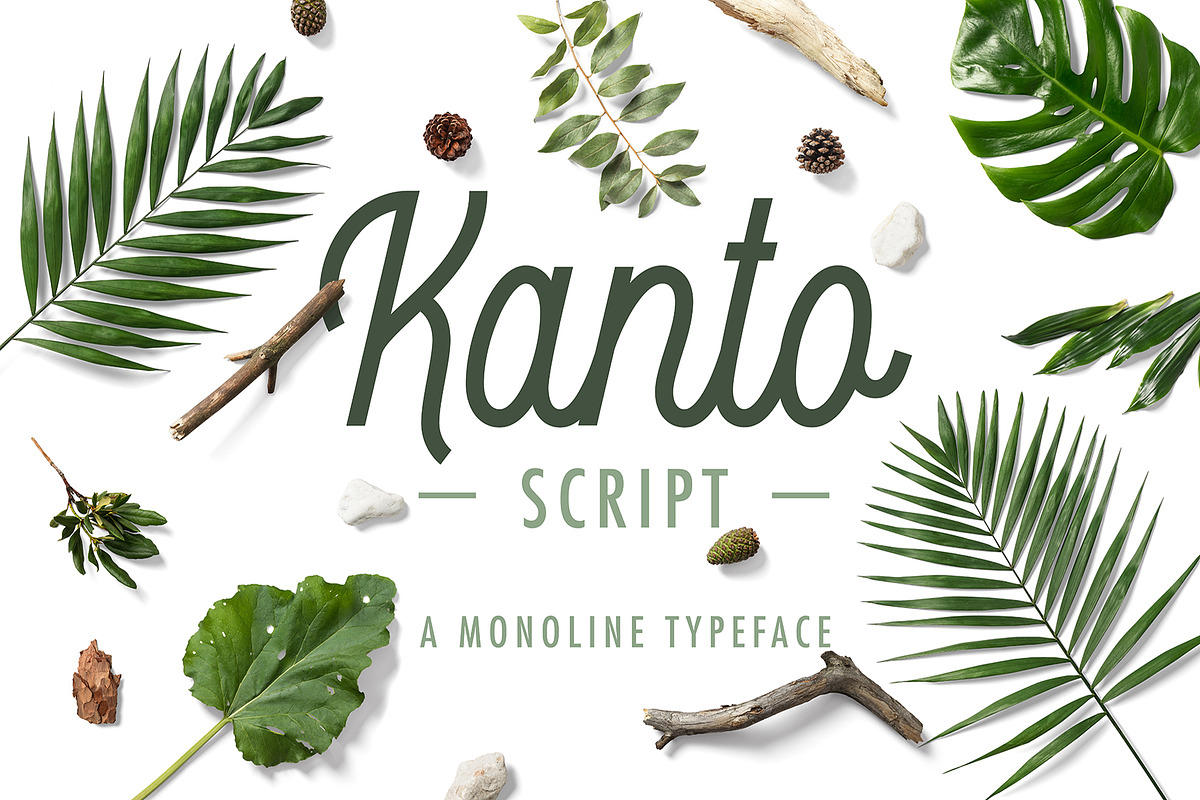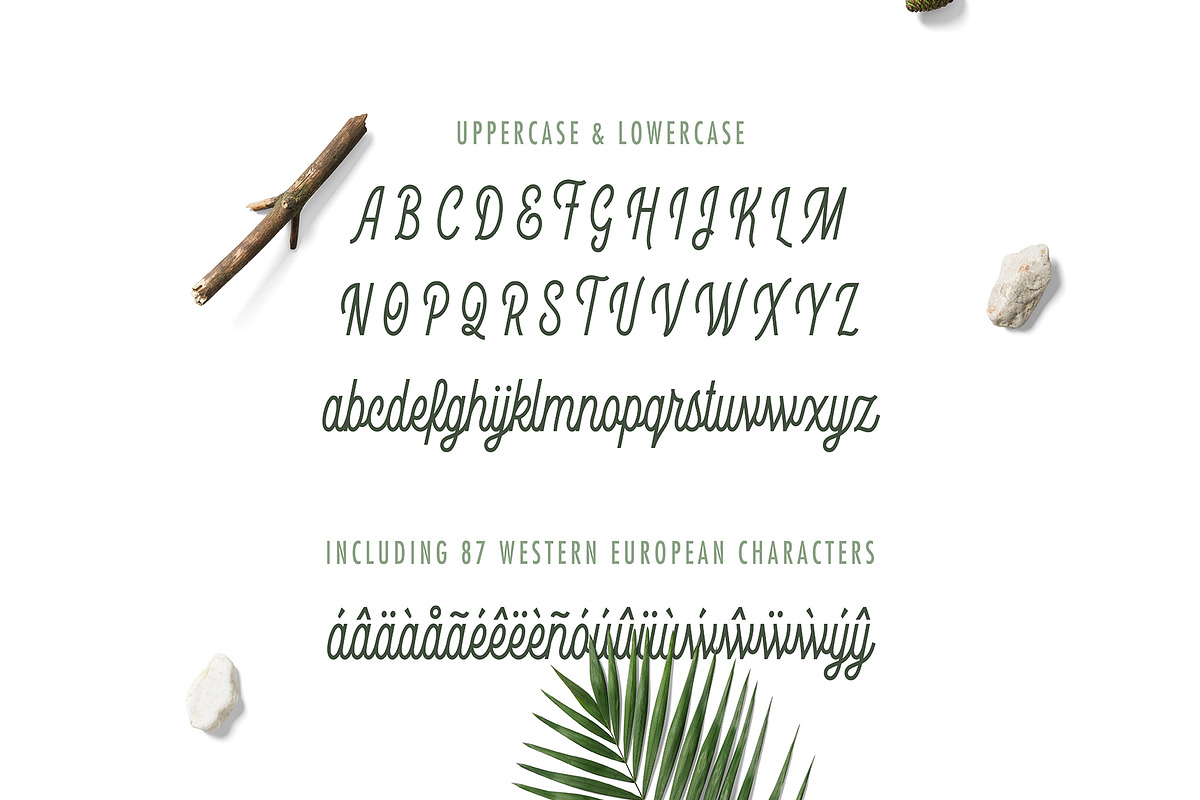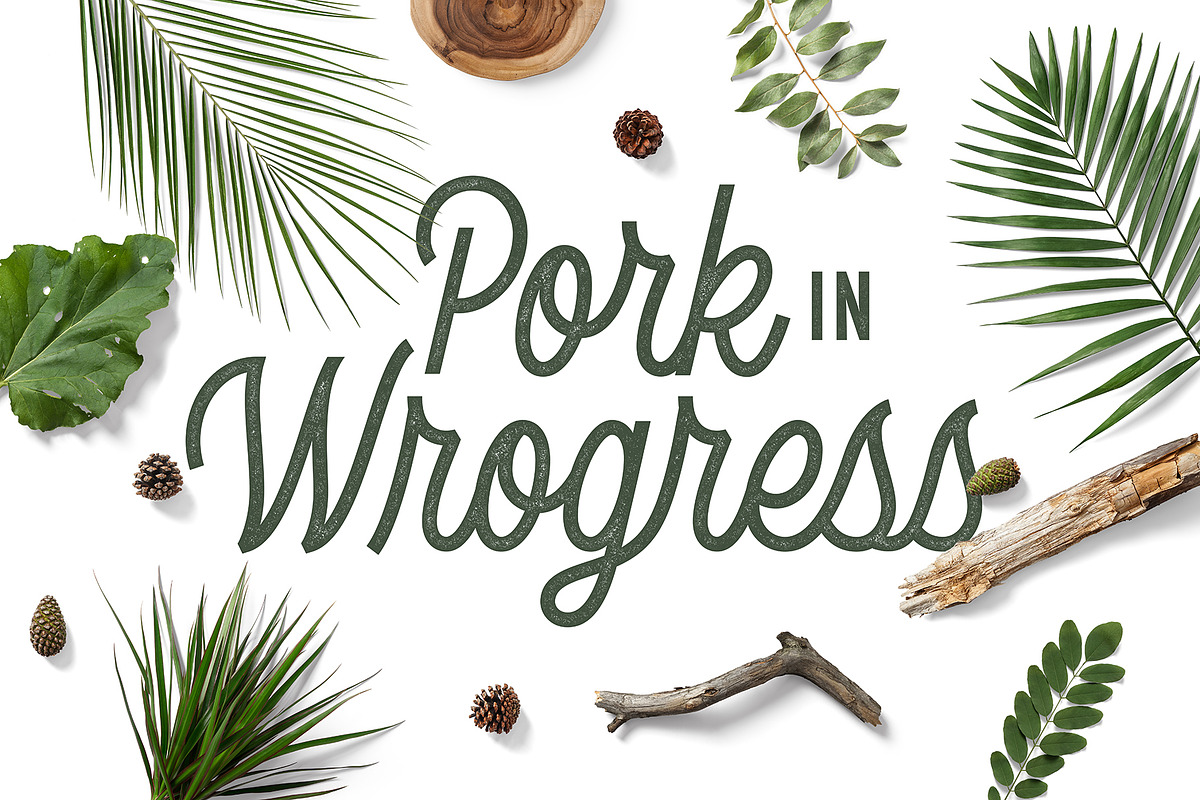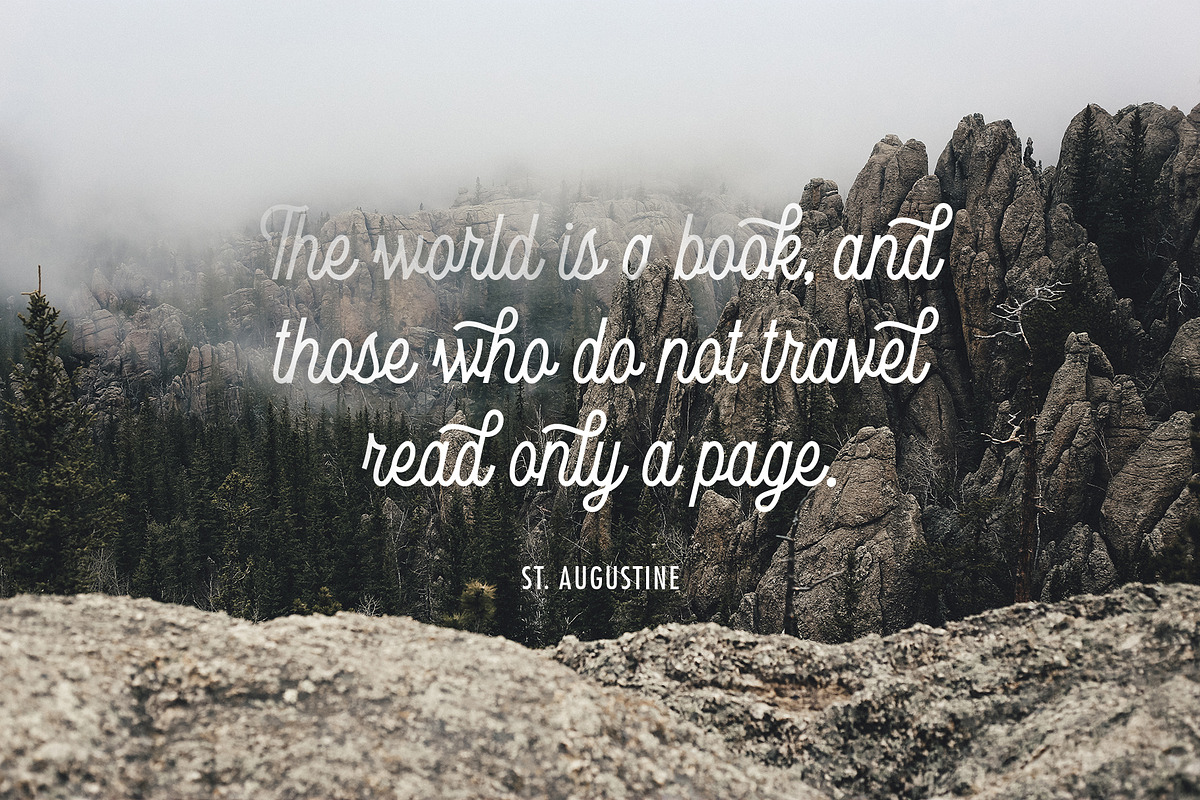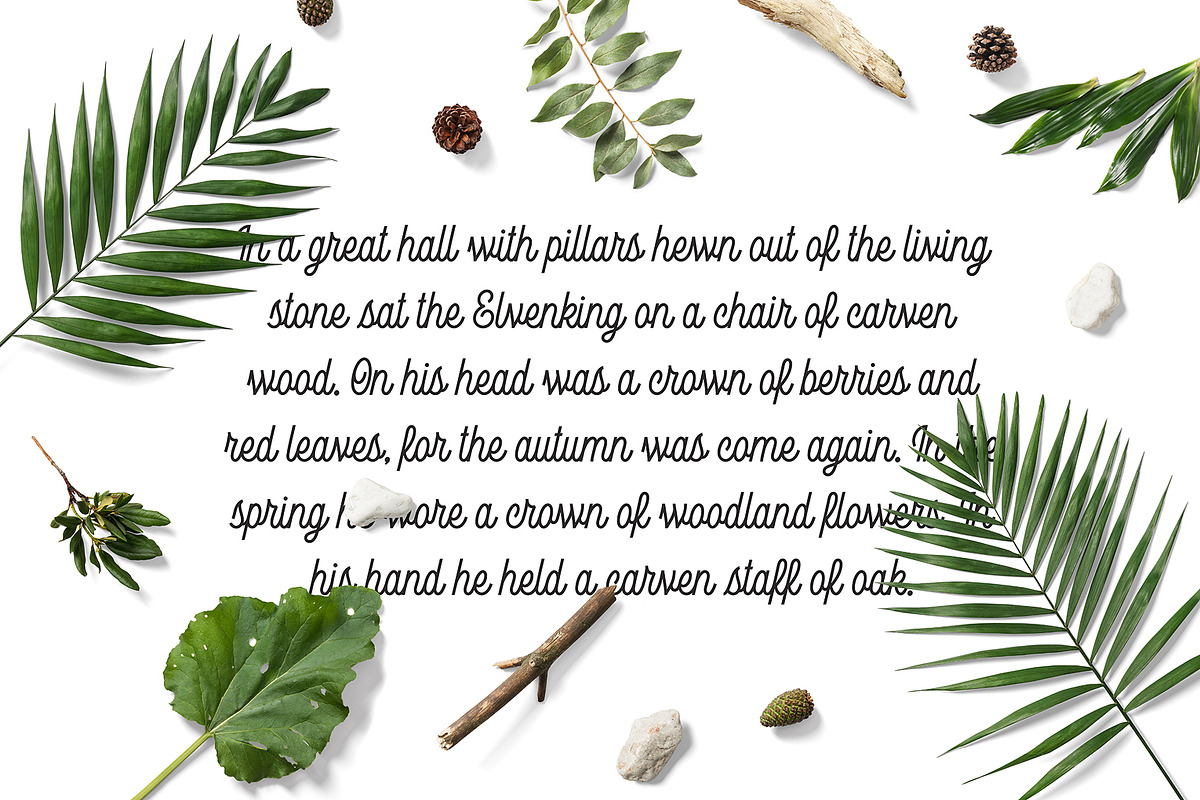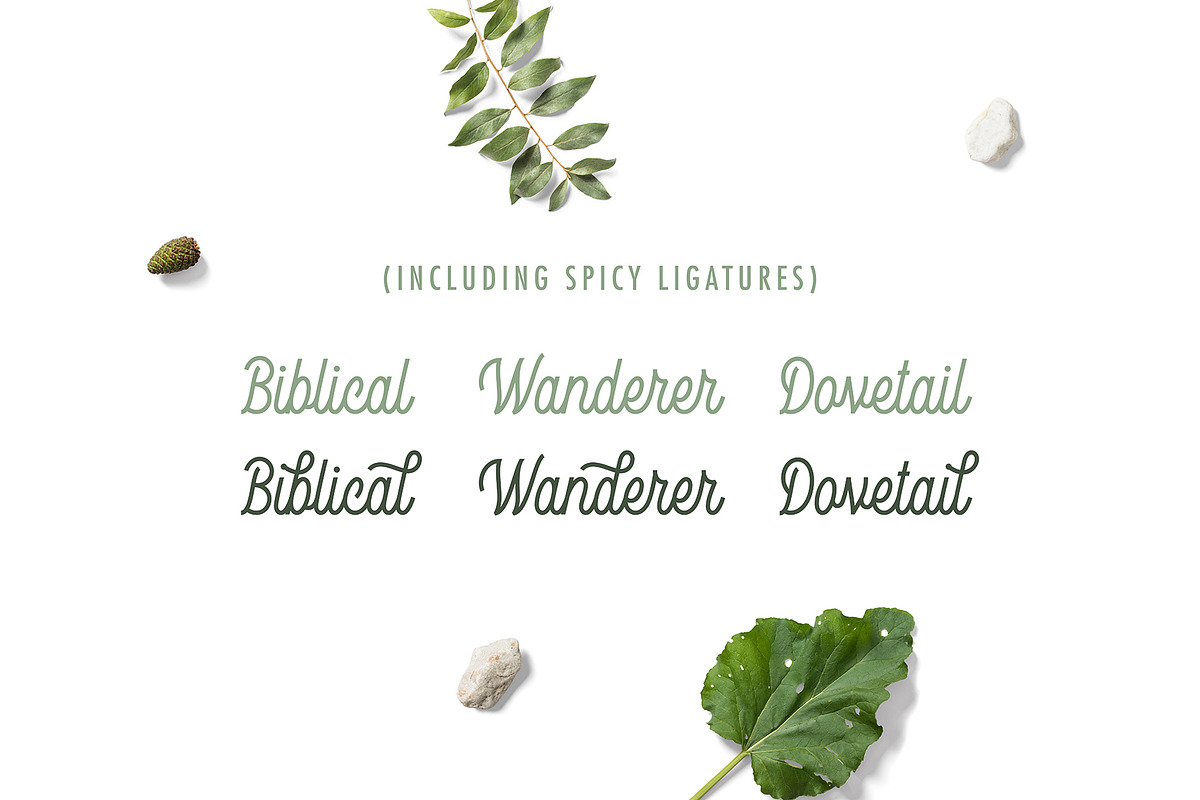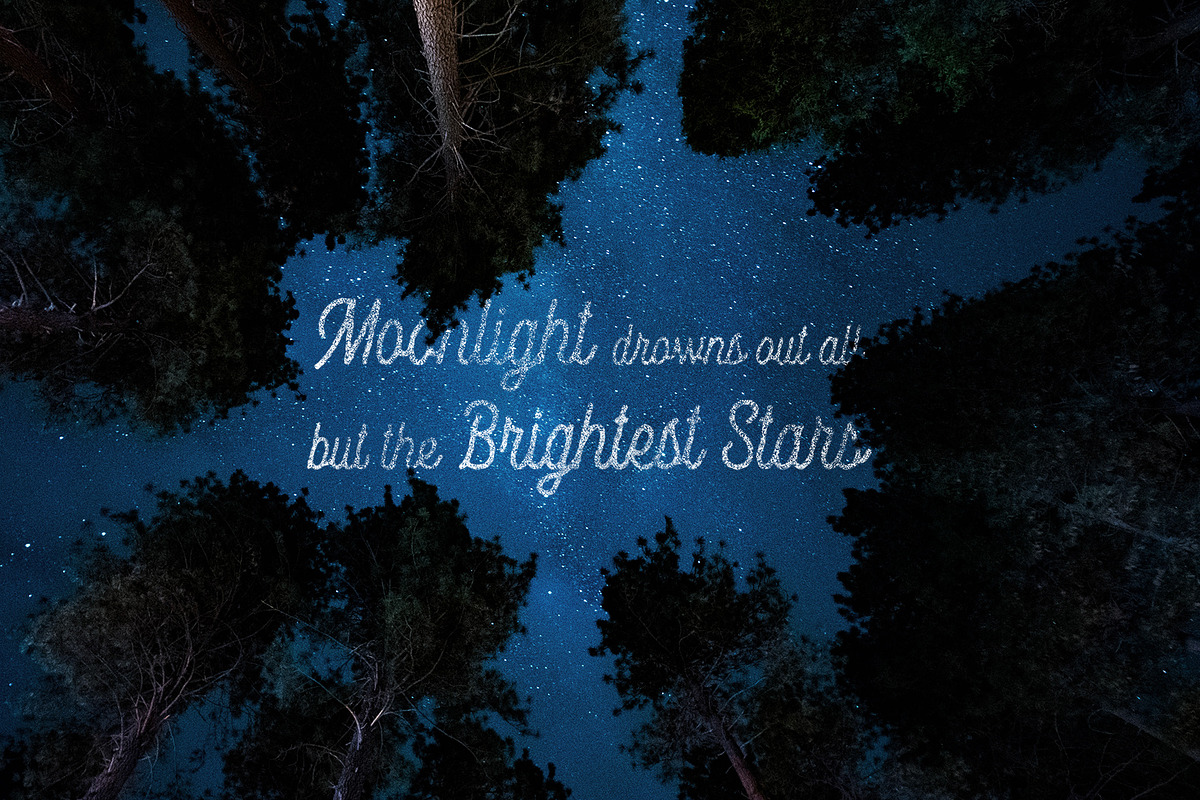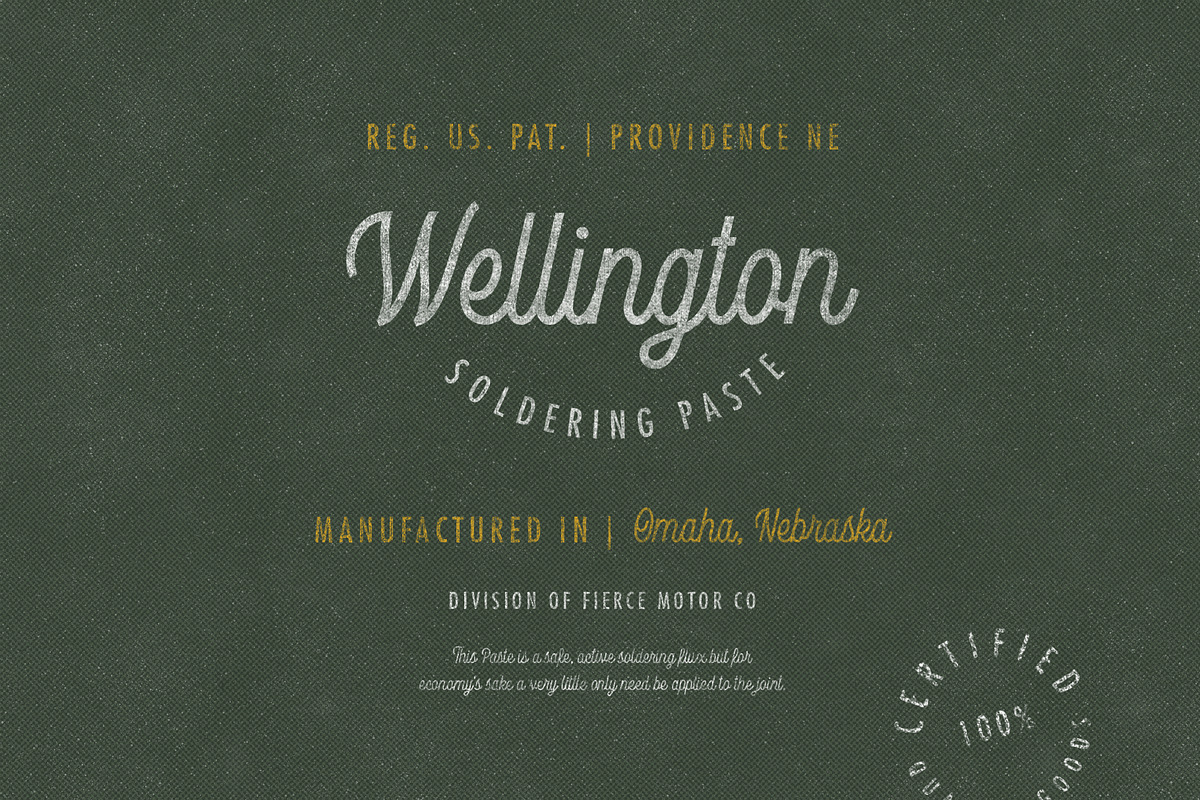
Kanto Script | A Monoline Typeface
Kanto script is a sophisticated typeface with lots of energy. This makes it perfect for many projects! Kanto is meant to shine so works best in logo design, package and apparel design, headlines and much more. With it's high legibility, it can even work in larger bodies of copy. As always, I create my typefaces using vector software so you don't have to worry about those pesky pixels limiting how large you can scale the type!
Kanto includes a variety of ligatures that can add even more life to your piece. This typeface also comes with Western European characters to allow for a broader use.
One challenge of a monoline connecting typeface, is that since everything is the same weight, kerning has to be spot on. Avoid "optical" kerning in the kerning pallet. Auto or Metrics should be automatically selected, but in case optical is your default, switch to metrics. Optical is the computer's best guess on how to kern, metrics follows the rules made by the designer so is much more accurate. Unfortunately optical is the standard for web viewing, but metrics will allow for a more seamless look.